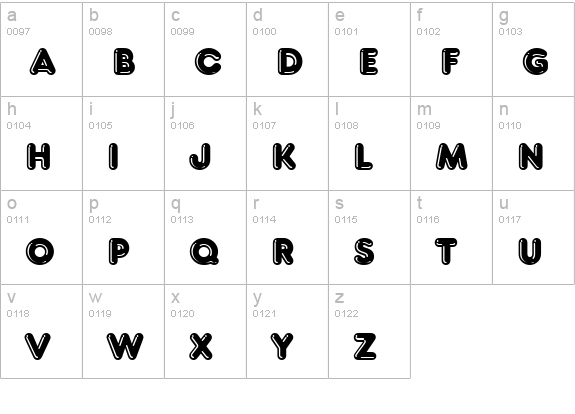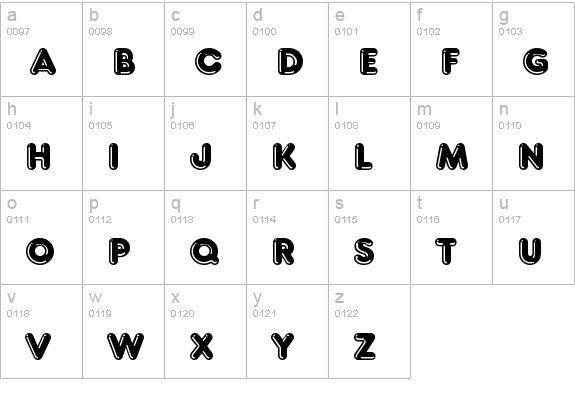
FrankfurterHigD Font Details
FrankfurterHigD font is a modern and stylish typeface that exudes elegance and sophistication. With its sleek lines and unique design, this font is perfect for a wide range of design projects, from branding to advertising to editorial use. The versatility of FrankfurterHigD font makes it a popular choice among designers looking to make a statement with their typography. What sets FrankfurterHigD font apart is not only its striking appearance, but also the fact that it is completely free to download. That's right, you can access this beautiful font at no cost on FontsMarket.com. Whether you're a seasoned designer or just starting out, FrankfurterHigD font is a valuable addition to your font library. Don't miss out on the opportunity to elevate your designs with this exceptional typeface.